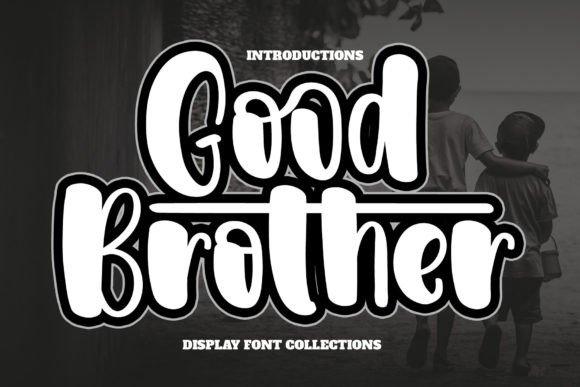
Good Brother: The Quirky Typeface That Upgraded My Brand Identity
I remember the exact moment I realized my brand wasn’t quite landing. I was sitting at my kitchen table, surrounded by half-empty boxes of handmade candles and stacks of thank-you cards that looked... fine. Just fine. They were legible, they were clean, but they lacked soul. As a small business owner, I had spent months perfecting the scent profiles and the wax blends, but when customers saw my packaging on their doorstep, it didn’t feel as warm or inviting as the products themselves. The typography was generic—a standard sans serif that blended into the background of Instagram feeds and market stalls. I needed something with personality. I needed a font that felt like a friend.
That search led me to Good Brother, a fun and quirky display font that completely shifted how I approached my visual identity. If you are a boutique owner, an online seller, or a creative entrepreneur looking to make your business look more consistent, polished, and memorable, let me share how this typeface changed the game for me.
Why Personality Matters in Typography
We often think of fonts as just vehicles for text, but in reality, typography is the voice of your brand. When a customer scrolls past your social media graphic or picks up your product, they make a split-second judgment based on visual cues. A rigid, overly formal font might say "corporate" or "serious," while a playful, rounded display font says "approachable," "joyful," and "handcrafted."
Good Brother falls squarely into that second category. It is designed with a cheerful, slightly whimsical vibe that instantly grabs attention without being overwhelming. It’s not just a decorative element; it is a strategic design asset. For businesses selling children’s items, gifts, crafts, or anything related to lifestyle and happiness, this font communicates the right mood before the customer even reads the price tag. It tells them, "This brand cares about fun and quality."
From Packaging to Social Media: Real Applications
Once I installed Good Brother, I stopped seeing it as just a file in my font library and started seeing it as a core component of my brand toolkit. Here is how I integrated it into everyday business materials:
- Product Packaging and Labels: I used Good Brother for the main title on my candle jars. Because the font has distinct shapes, it stands out beautifully against simple kraft paper or clear glass. It gives the product a premium yet friendly feel, making it shelf-ready for gift shops.
- Social Media Graphics: On Instagram and Pinterest, thumbnails need to pop. I started using Good Brother for short phrases and headlines in my posts. Combined with bright colors—like coral, mint, or sunny yellow—the text becomes an image itself. It increases engagement because people stop scrolling to read the catchy, bold lettering.
- Thank-You Cards and Stickers: These small touches build loyalty. Printing "Thank You" or "With Love" in Good Brother adds a personal, handwritten touch that feels intentional. It turns a transaction into a connection.
- Website Banners and Digital Ads: For my online shop, I used the font for hero banners. It draws the eye immediately to the call-to-action. Unlike body text, which needs to be neutral, display headers benefit from character. Good Brother provides that character without sacrificing readability.
Readability and Practical Design Tips
One common concern with display fonts is whether they are easy to read. Good Brother strikes a great balance. It is highly legible for headlines, short phrases, and logos, but it is best used sparingly. Here is some practical advice I learned while testing different layouts:
- Keep it Short: Use Good Brother for titles, subtitles, and key messages. Avoid using it for long paragraphs of body copy. Its quirkiness can become tiring to read over long distances.
- Consider the Medium: When designing for mobile screens or small product labels, ensure the text size is large enough. The unique curves of the letters need space to breathe so they don’t blur together. On printed packaging, test a proof first to see how the ink interacts with the paper texture.
- Use Contrast: This font shines when paired with contrasting elements. Place it on solid, bright backgrounds or use it in white against dark, rich colors. The visual weight of the letters demands attention, so give them room to stand out.
Smart Font Pairing Strategies
No font works in isolation. To create a cohesive brand identity, you need to pair Good Brother with complementary typefaces. Since Good Brother is a display font with strong personality, it pairs exceptionally well with simpler, cleaner fonts that provide structure.
For a modern and balanced look, try pairing it with a clean sans serif font. The neutrality of the sans serif allows the playful nature of Good Brother to take center stage. This combination is perfect for menus, flyers, and informational graphics where you need both style and clarity.
If you want a softer, more elegant aesthetic, consider combining it with an elegant serif font. This mix creates a sophisticated yet approachable vibe, ideal for beauty brands, skincare labels, or boutique clothing tags. Alternatively, for a fully cohesive "handmade" look, you might pair it with a subtle script font for secondary details, though you must ensure the two fonts have compatible x-heights and stroke weights to avoid visual clutter.
Typography is one of the most powerful tools in a small business owner’s arsenal. It doesn’t require a huge budget to upgrade your visuals; sometimes, it just requires choosing the right voice. Good Brother offers a blend of fun, professionalism, and warmth that resonates with today’s consumers. By investing time in selecting a creative font that aligns with your brand’s values, you are not just decorating your materials—you are building trust, recognition, and a lasting impression. If you are ready to bring more joy and clarity to your brand, giving Good Brother a try might be the simple change your business has been waiting for.